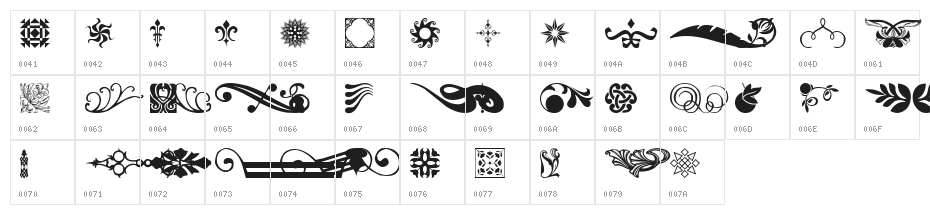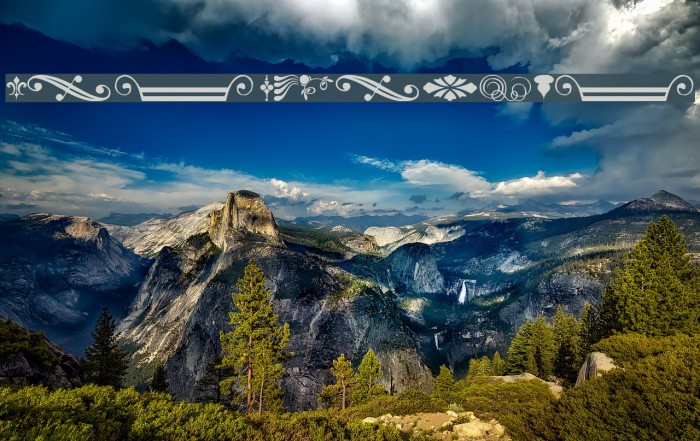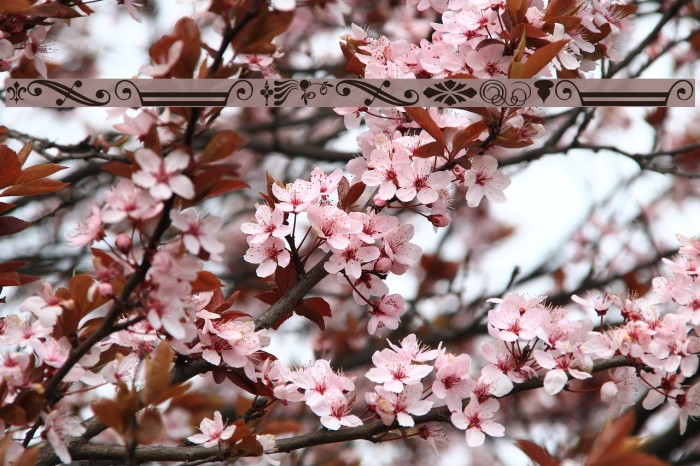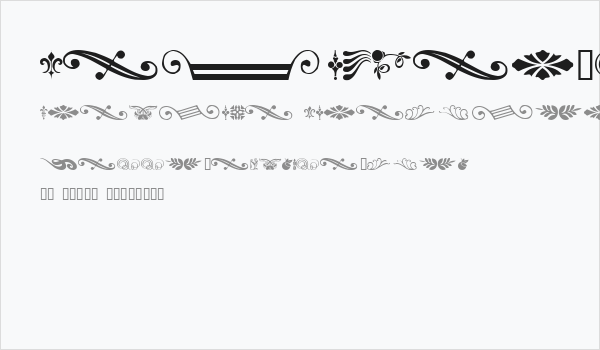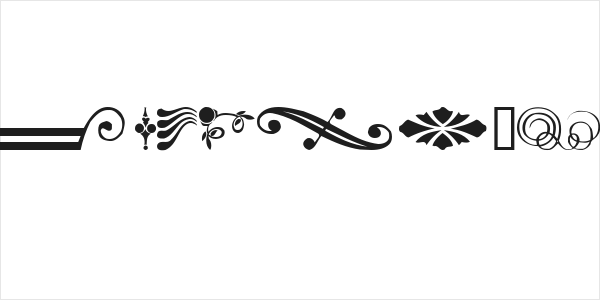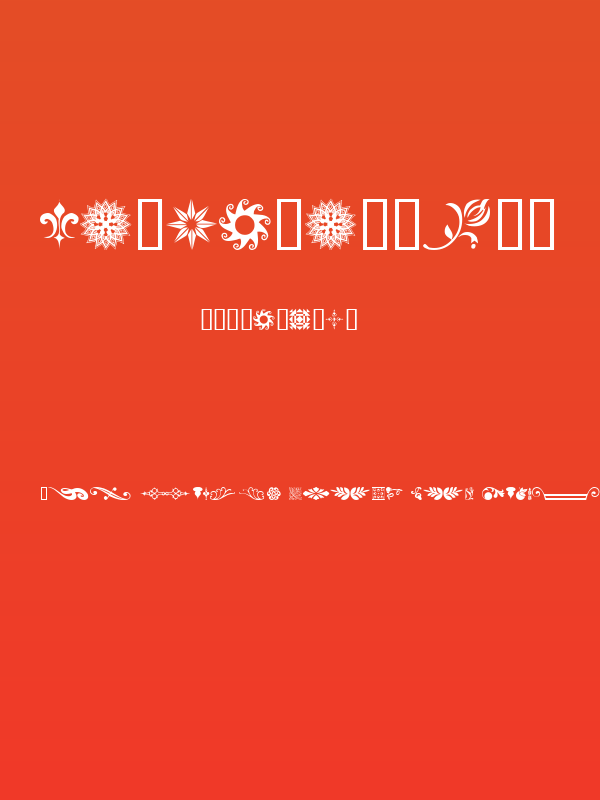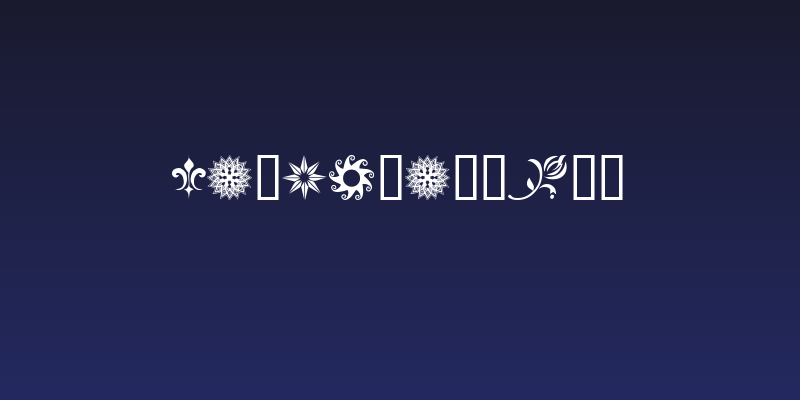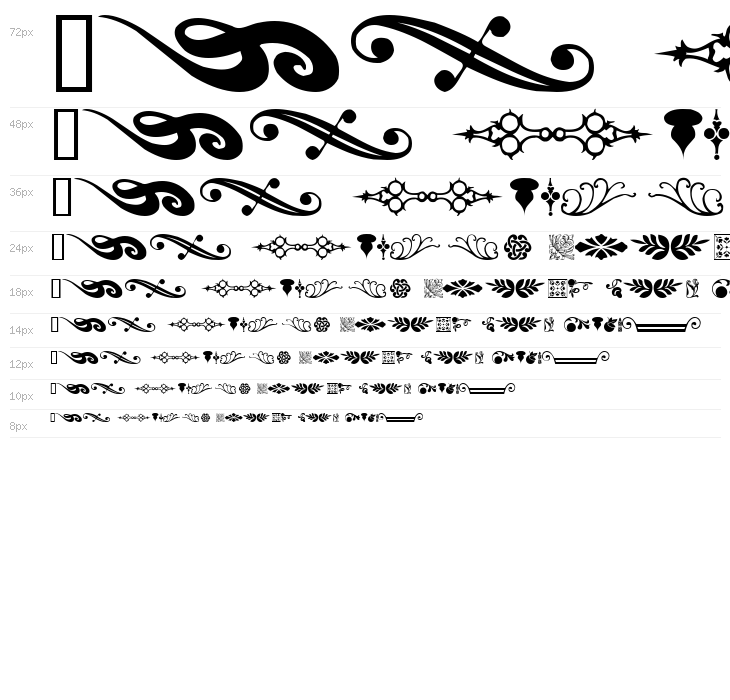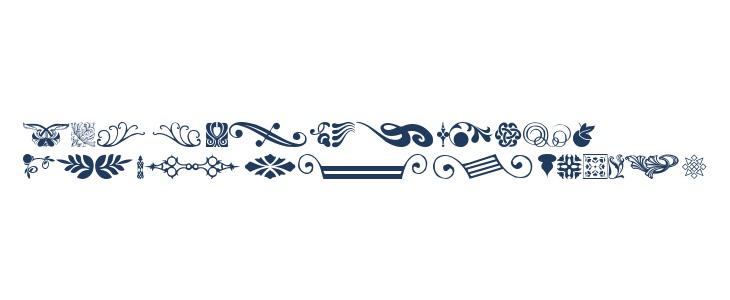
DesignerPlus Font
DesignerPlus Description
A decorative dingbat font featuring a variety of ornate flourishes, borders, and ornamental motifs, including swirls, floral elements, and geometric shapes, designed for embellishing layouts and adding visual interest.
| Overall Style | Decorative, Vintage |
| Use Case | Borders, embellishments, graphic accents |
| Proposed Projects | Invitations, certificates, decorative borders, vintage posters, scrapbooking, branding accents. |